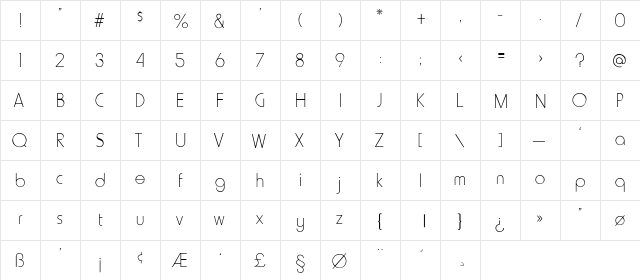
Howard-Light Regular Font Preview
Howard-Light Regular
Design Context for Howard-Light Typeface
Howard-Light is a composed and adaptable typeface that performs quietly and consistently across a wide range of design contexts. The delicate stroke weight brings airiness and refinement to layouts.